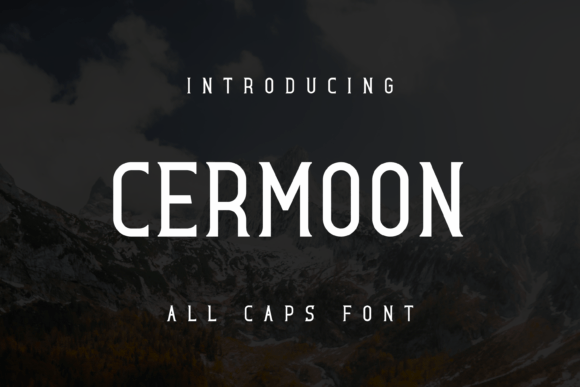
Dive into the world of Cermoon, where fonts ignite your imagination and captivate your audience. Each stroke, meticulously crafted and brimming with detail, awaits your touch. Whether you're a seasoned designer or a budding enthusiast, Cermoon is your key to unlocking the power of words.
Unleash the magic of Cermoon for blog headlines that leave a lasting impact. Its bold presence and undeniable charm will make your words dance off the screen, commanding attention and captivating every reader. Cermoon's versatility knows no bounds, allowing you to experiment with limitless possibilities and bring your creative visions to life.
Picture this: your blog headlines adorned with Cermoon's remarkable grace, grabbing the spotlight and enticing readers to explore the captivating stories within. Its dynamic curves and elegant lines create a visual symphony that draws the eye and stirs the imagination. With Cermoon at your fingertips, your headlines won't just be read – they'll be savored, remembered, and shared.
Indulge in the artistry of Cermoon, where every character is a work of art. Its intricate details and fluid strokes evoke a sense of timeless elegance, adding an air of sophistication to your creations. Whether you're designing posters, website headers, or eye-catching social media graphics, Cermoon's allure will leave an unforgettable mark.
Discover the endless possibilities that await with Cermoon. Embrace the power of fonts and watch your creativity soar to new heights. Enhance your designs, captivate your audience, and make your words resonate with an impact that will endure.